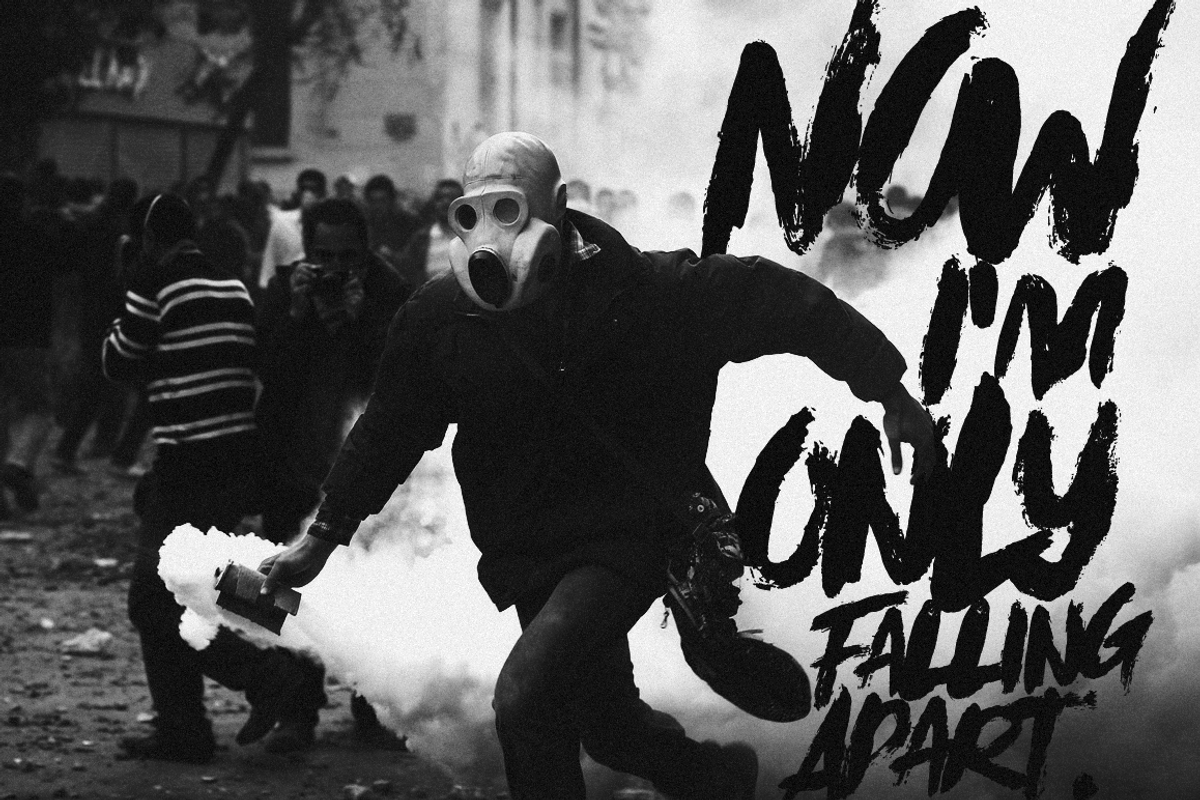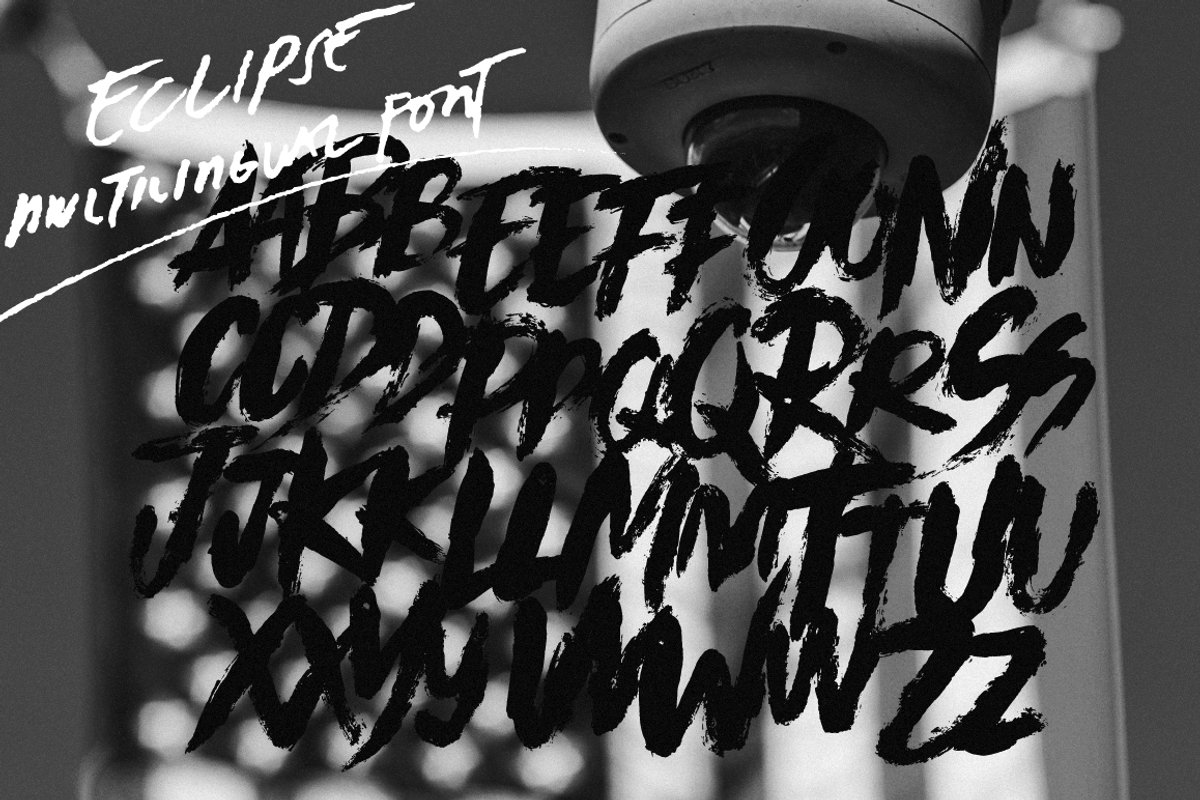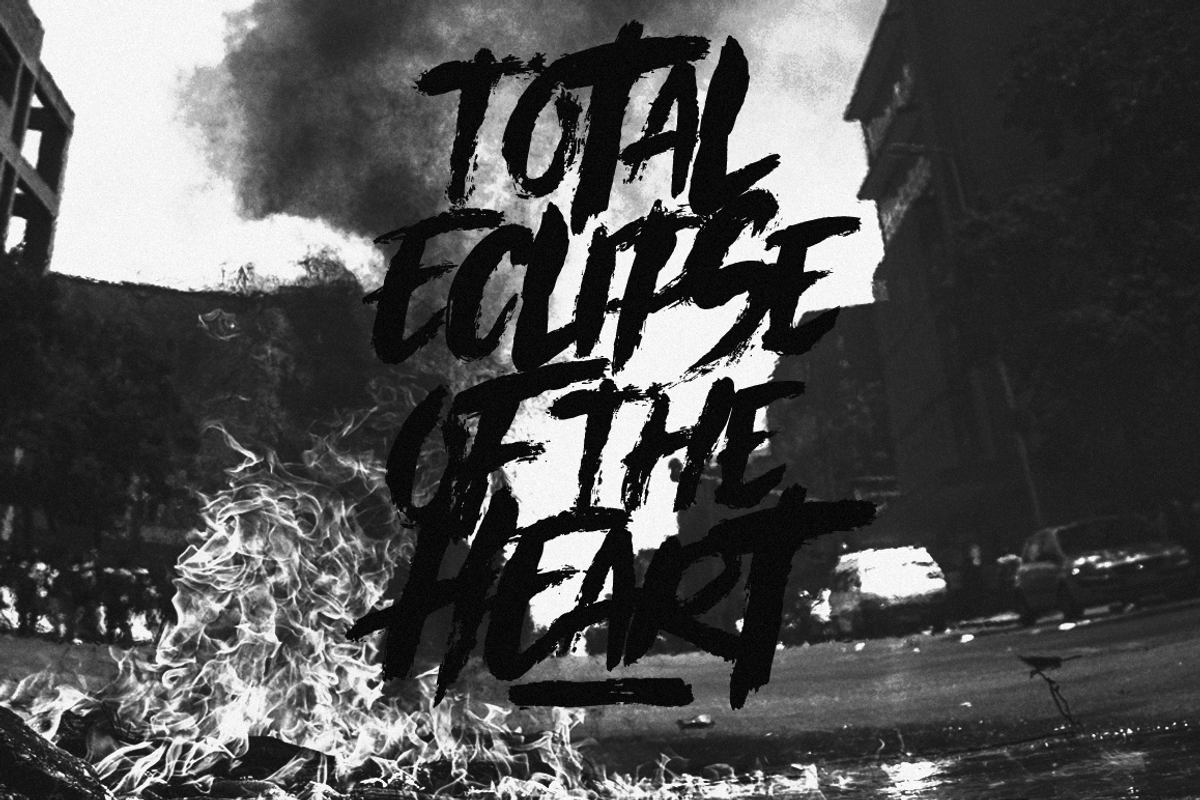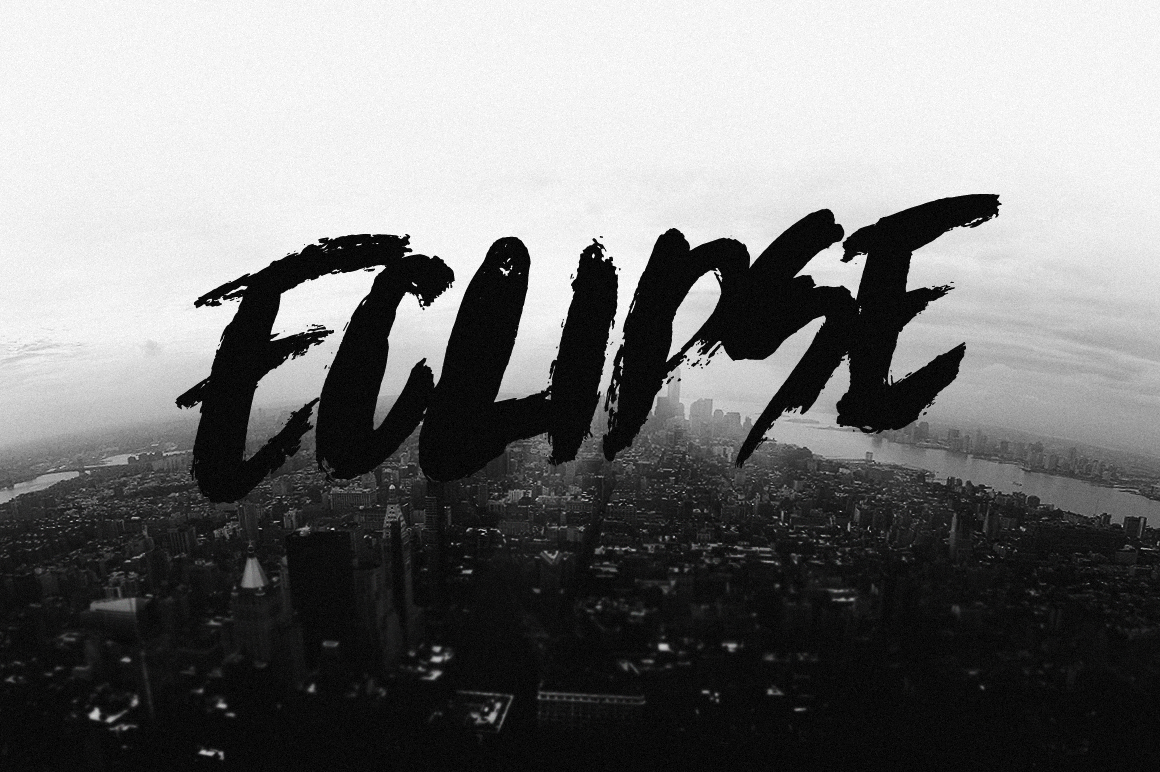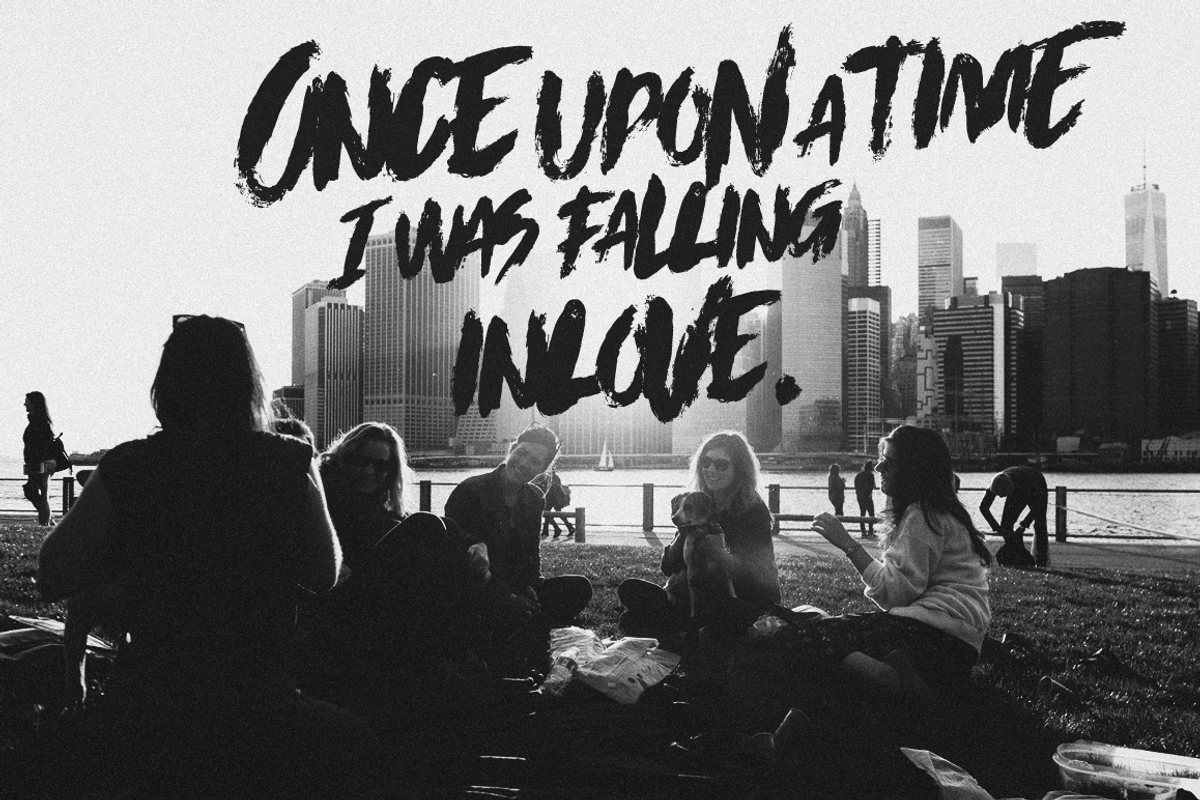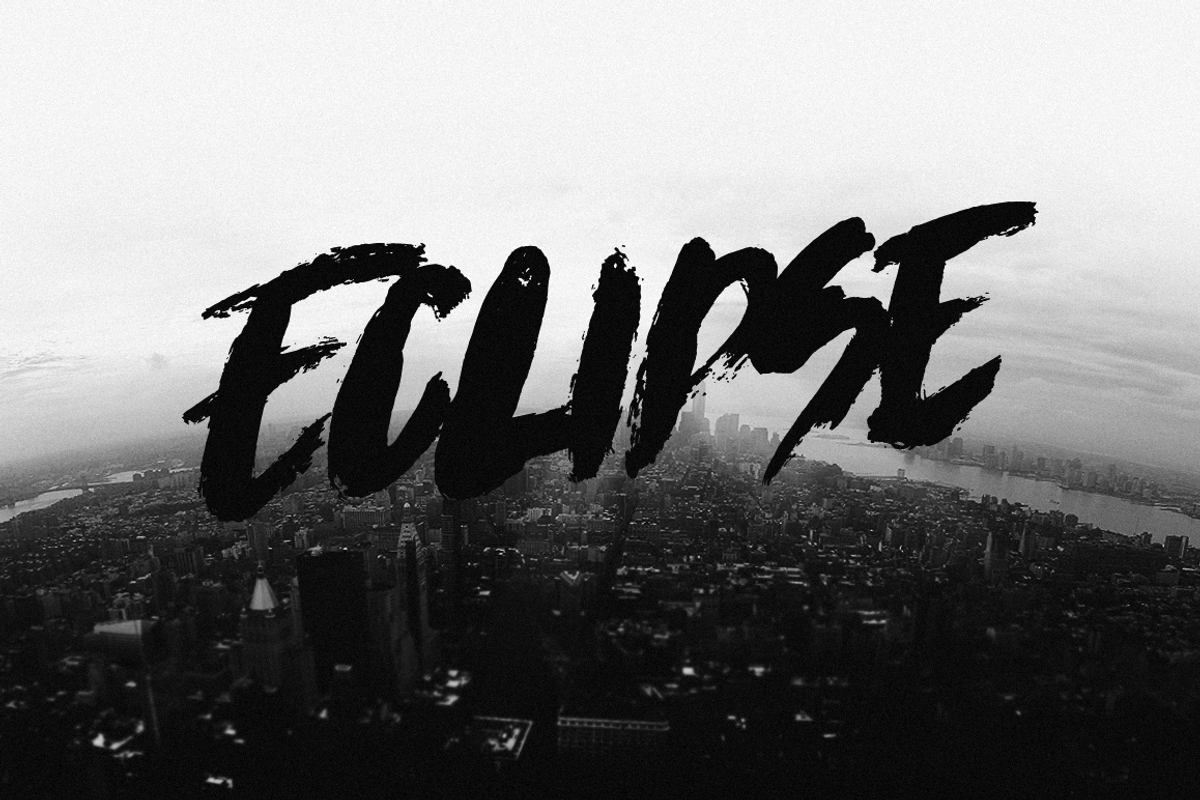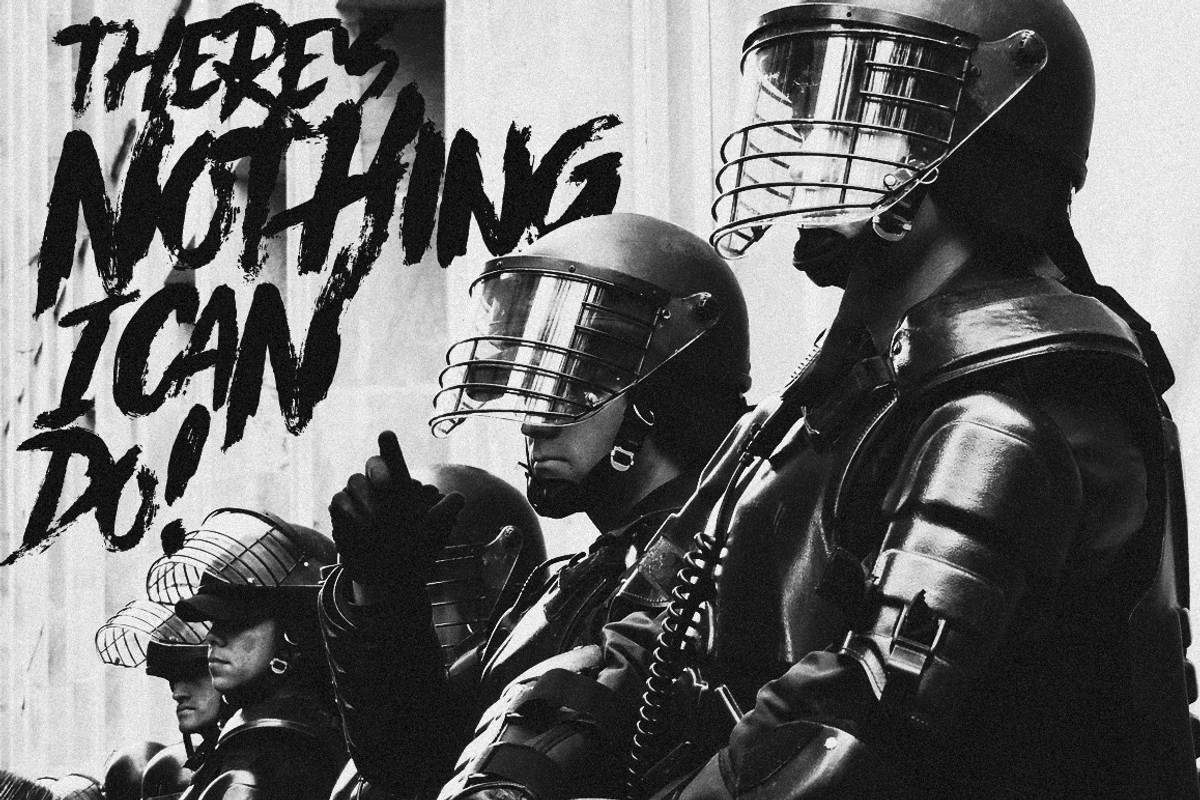
Eclipse Font
This is messy and chaotic. A font of disorder. Eclipse!
With the use of an old round brush and textile ink, we produced a detailed look of another raging font.
-Multilingual
-Alternate Caps
This font was used by Marshmello for his lyric video: https://www.youtube.com/watch?v=XJT7I0sLdD0